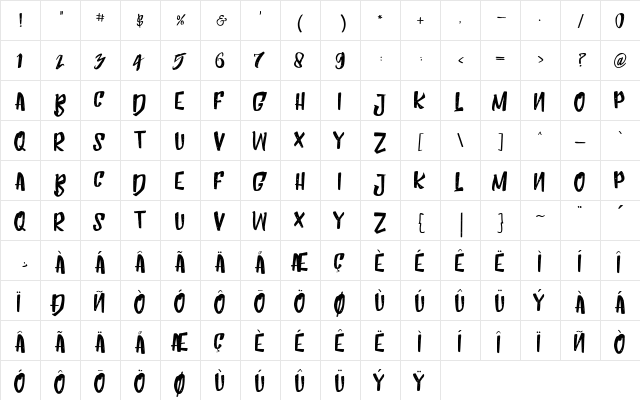
Humblle Rought All Caps Regular
Design Context for Humblle Rought All Caps Typeface
Humblle Rought All Caps trades polish for personality, using distressed and eroded forms to bring grit and attitude to creative work.
Suited to punk-influenced zines, underground music branding, streetwear, and raw, anti-corporate design.
Pro Tip: Pair Humblle Rought All Caps with intentionally raw or lo-fi design elements. Fighting against it with overly polished surroundings will undermine its personality.